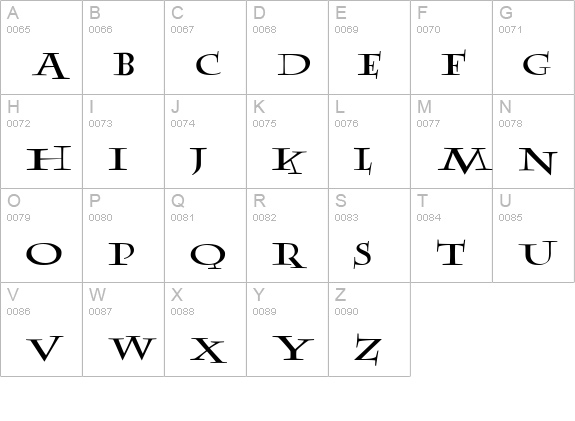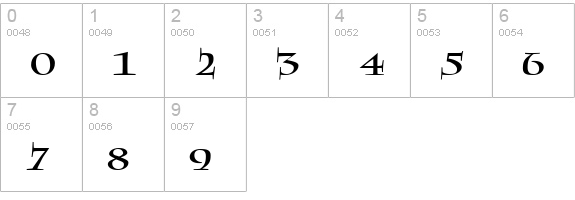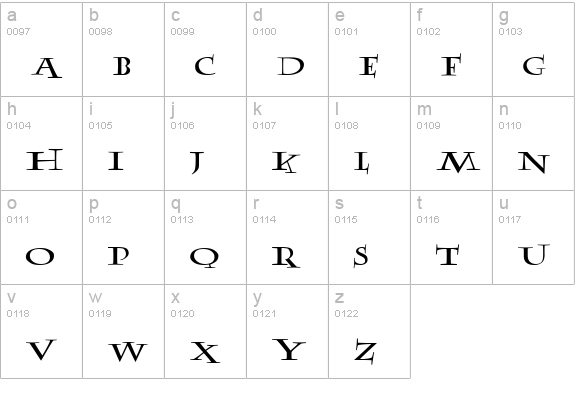
AblefontA Font Details
Introducing AblefontA, a versatile and stylish font that is sure to elevate your design projects to the next level. With its modern yet timeless appeal, AblefontA is perfect for a wide range of applications, from branding and advertising to invitations and social media graphics. Its clean lines and elegant curves make it a standout choice for any project that requires a touch of sophistication. What sets AblefontA apart is not just its striking design, but also the fact that it is available for free. That's right, you can download AblefontA at no cost from FontsMarket.com, making it accessible to all designers and creatives looking to add a touch of class to their work without breaking the bank. Whether you're working on a logo, a website, or a print publication, AblefontA is sure to make a lasting impression. So why wait? Download AblefontA today and see for yourself the difference that a high-quality, free font can make in your designs.